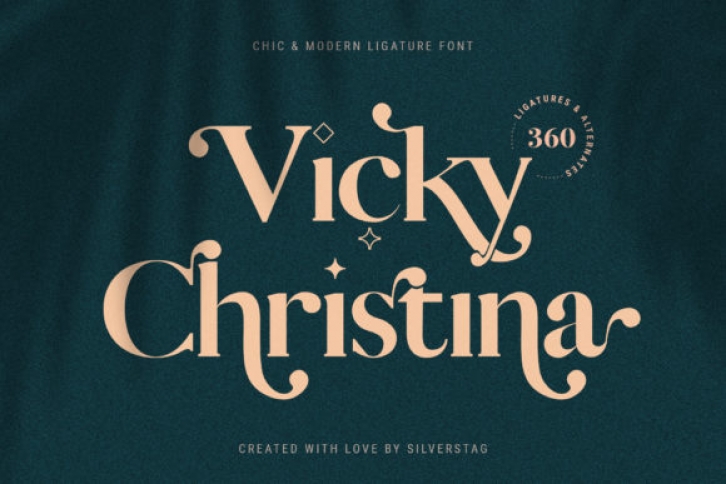
Vicky Christina is a classy serif font. It features cute and extended characters that will look particularly adept when used in logos, branding, packaging design, and much more. This masterfully designed font is a true must-have. Get inspired by its authentic feel and use it to create gorgeous wedding invitations, beautiful stationary art, eye-catching social media posts, and cute greeting cards.
This font is PUA encoded which means you can access all of the amazing glyphs and swashes with ease! It also features a wealth of special features including alternate glyphs and ligatures.